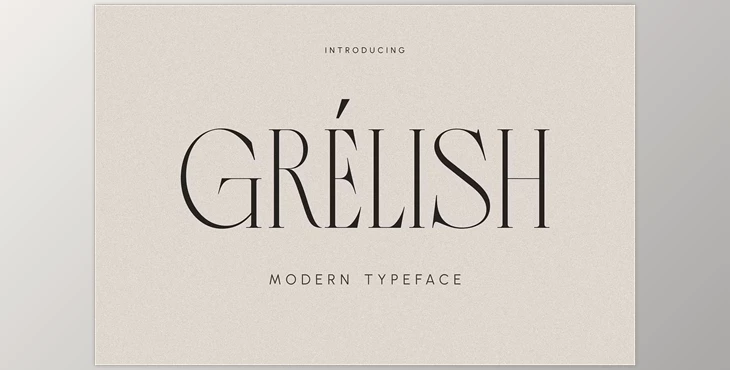
Grelish - Modern Typeface: Grelish is a modern typeface that epitomizes luxury in every aspect. Its serif design exudes elegance with smooth and well-proportioned serifs, showcasing timeless sophistication. The delicate lines of each serif convey a sense of stability and perfection, evoking a classic and enduring charm. Each curve and letter proportion exudes a captivating elegance. When utilized, this luxurious serif font adds an exclusive touch to the text, radiating an aura of opulence and prestige.
- Unique ligatures and alternates